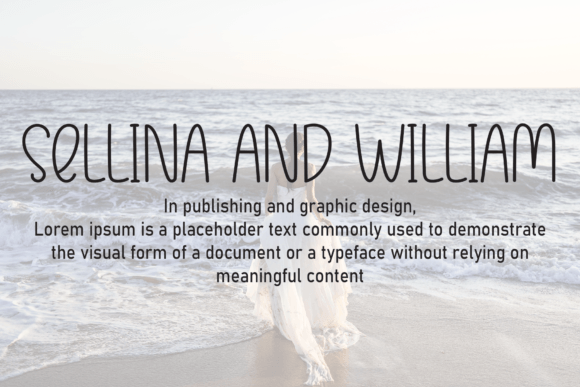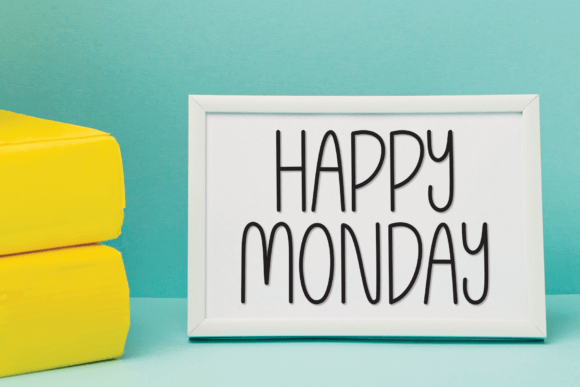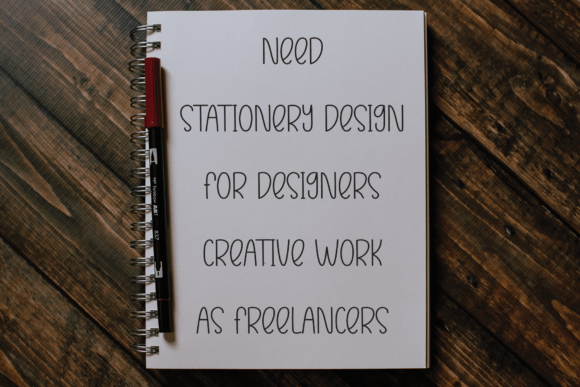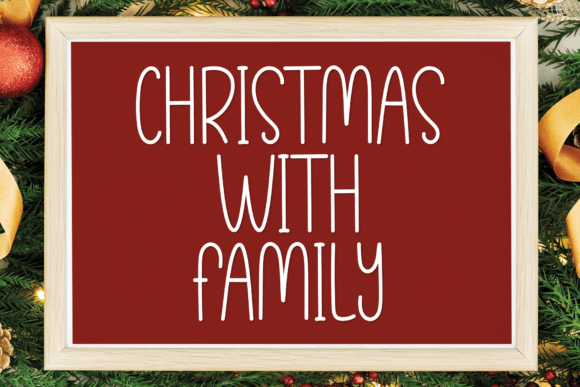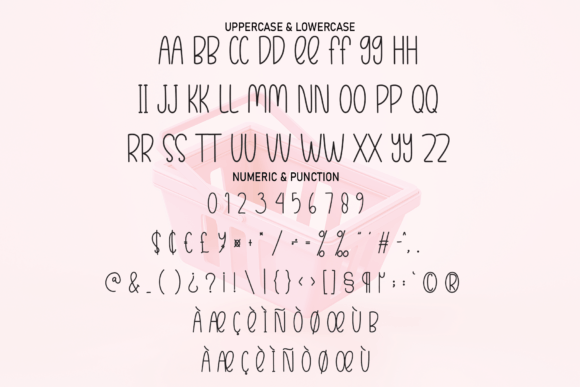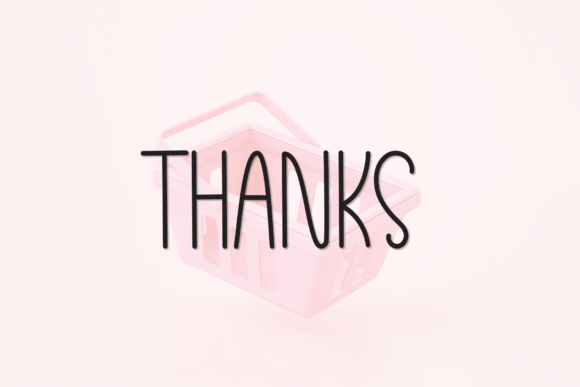
Introduction to Market Creative Font
Market Creative feels equally charming and elegant.
Market Creative Font offers exceptional quality and versatility, making it a valuable addition to your design toolkit. Whether you’re creating for personal projects or commercial use, Market Creative Font delivers professional results.